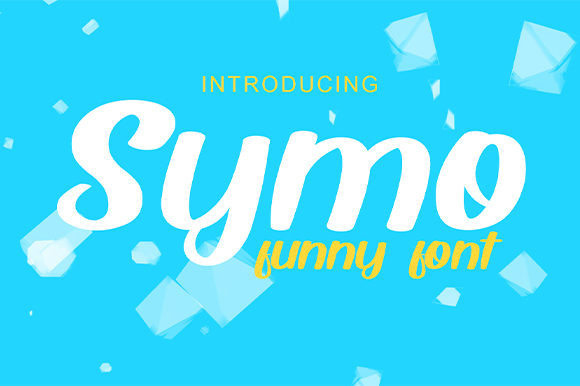
Welcome to the world of enchantment, where letters are like fairies and words are like magic spells. Symo Font, a celestial display font, awaits you, ready to ignite your designs with a symphony of elegance and charm. Created by the visionary Nico Muslib, Symo Font is not just a font; it's a conduit to a realm of dreams, where the ordinary becomes extraordinary.
With its playful curves and enchanting strokes, Symo Font is a dance of letters, each character twirling and swirling across the page, weaving tales of wonder and delight. Its delicate lines and graceful form evoke a sense of whimsy and nostalgia, reminiscent of long-forgotten fairy tales and enchanted forests.
As you embark on your crafting adventures, Symo Font will be your guide, transforming your projects into masterpieces of creativity. Whether it's a whimsical invitation, a heartwarming greeting card, or a captivating poster, Symo Font will elevate your words, making them sing with joy and resonate with your audience.
Its versatility is as boundless as the imagination itself. Symo Font adorns your digital creations with a touch of magic, making your websites, social media posts, and online advertisements shine with a captivating allure that draws the eye and enchants the soul. It's the perfect companion for those who seek to create a lasting impression, leaving their audience spellbound and eager for more.
So, let your creativity take flight with Symo Font. Discover the boundless potential of this enchanting display font as it transforms your designs into mesmerizing works of art. Step into the realm of imagination and let the magic of Symo Font guide you to new heights of inspiration and wonder. Embrace the beauty, embrace the enchantment, and create a world of dreams with Symo Font.